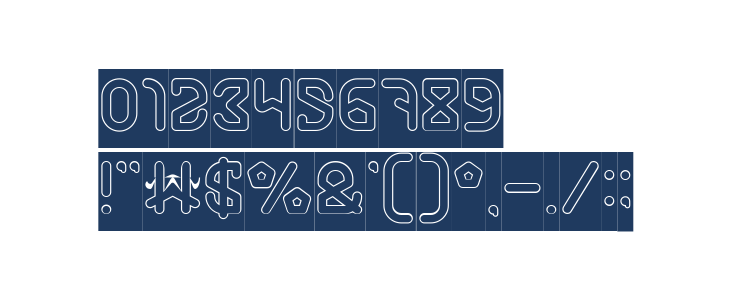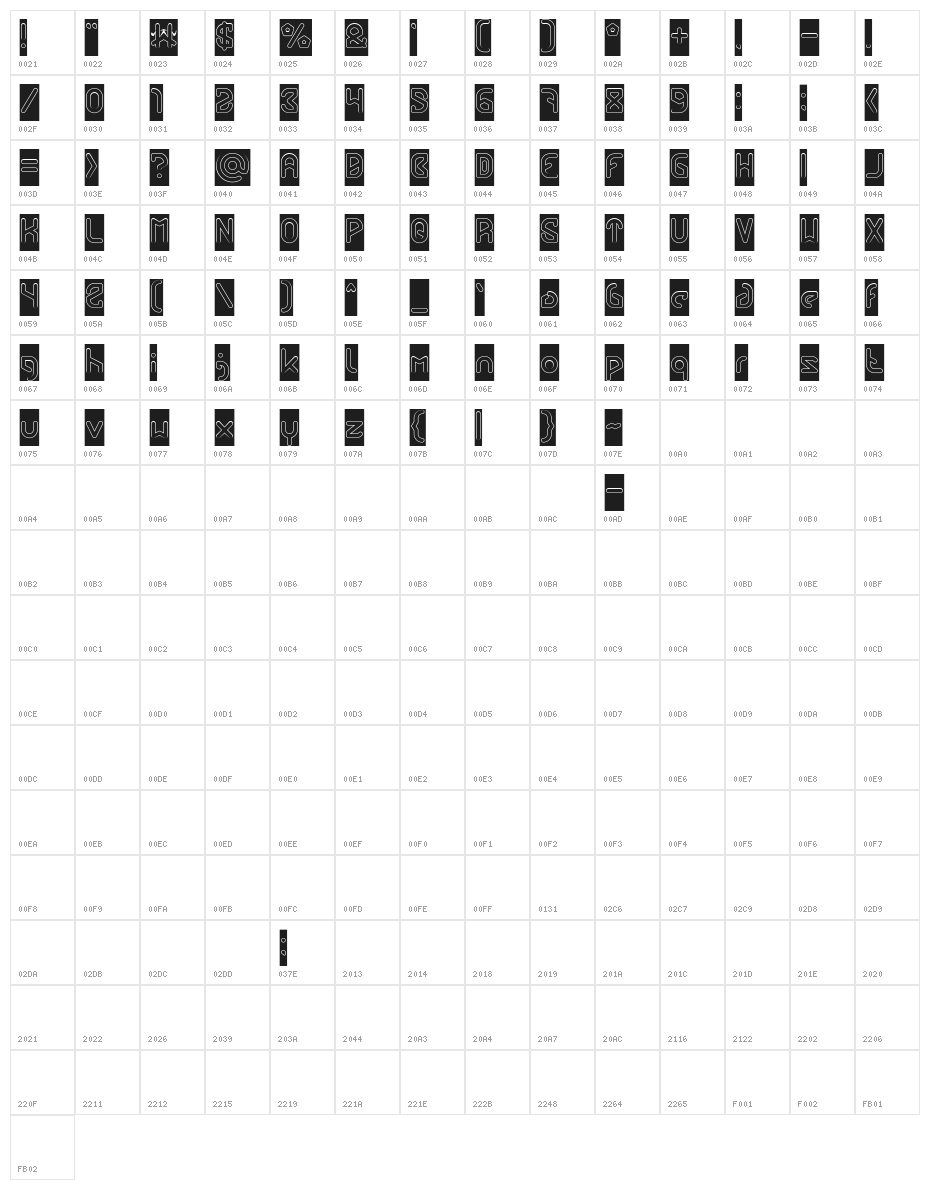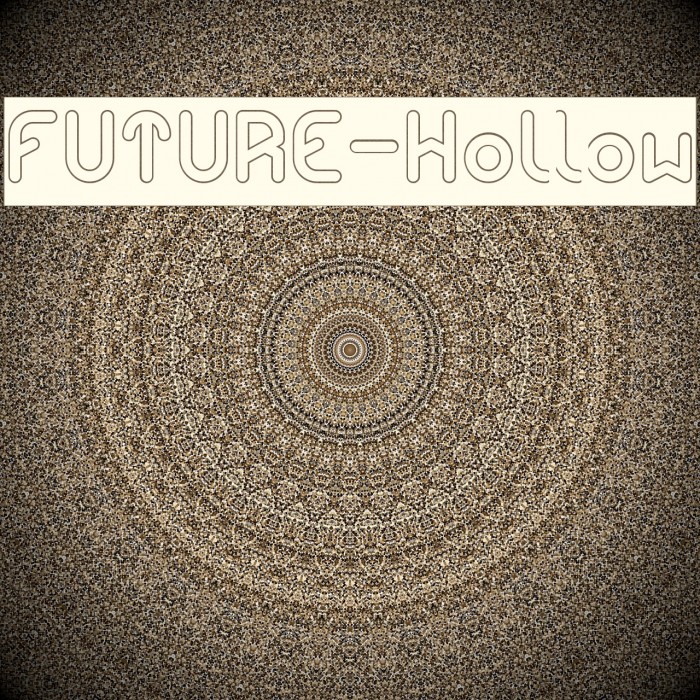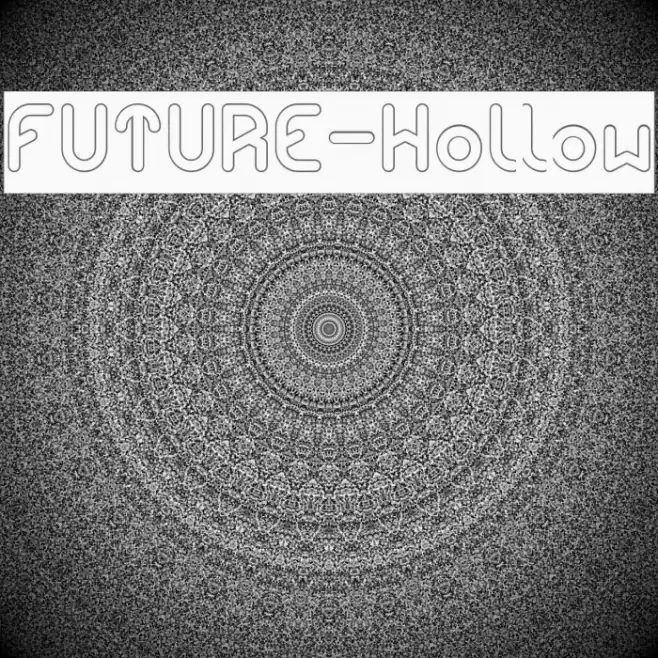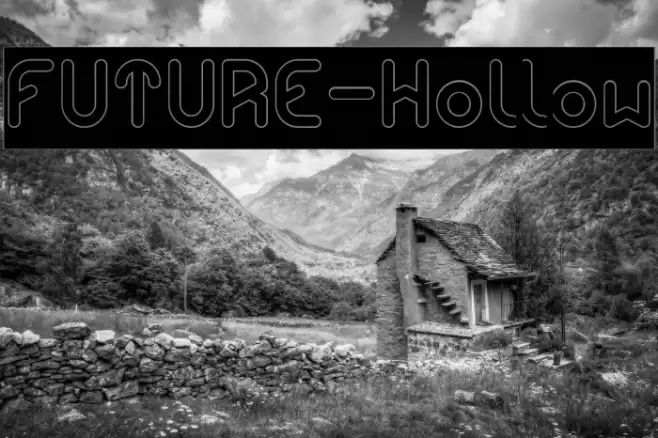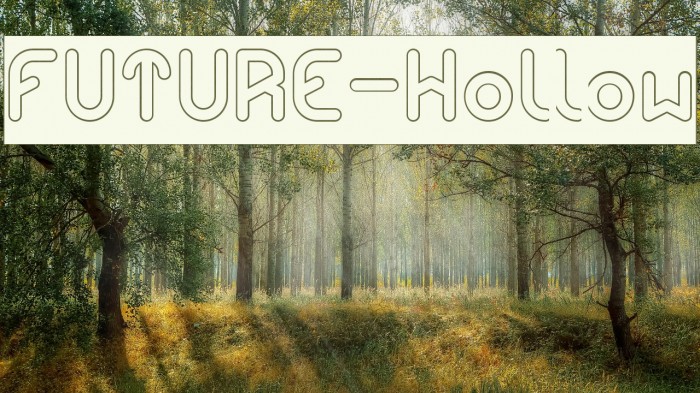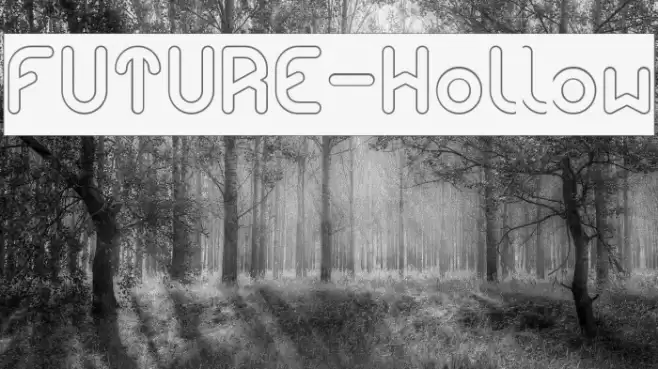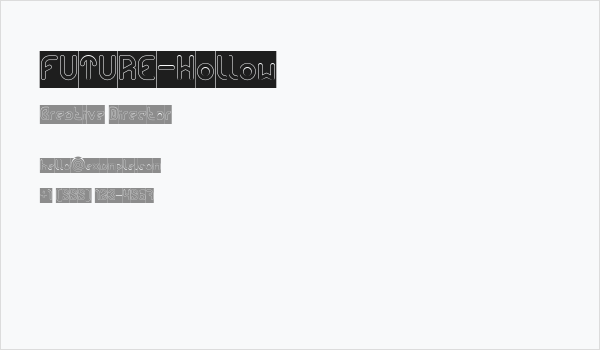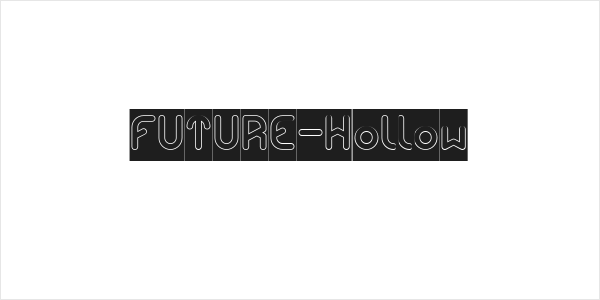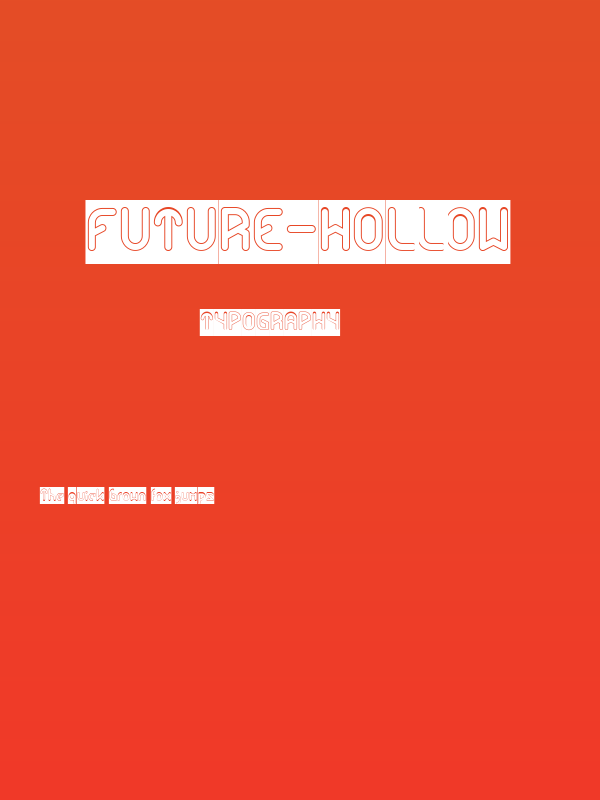
FUTURE-Hollow Font
FUTURE-Hollow Description
This font features a futuristic and hollow design, characterized by its geometric and linear structure. The letters are outlined with a consistent stroke width, creating a hollow effect that gives a modern and digital appearance. The uppercase and lowercase letters maintain a uniform style, with rounded edges and a clean, minimalist look. Numbers and special characters follow the same design principles, ensuring a cohesive appearance across all glyphs. The font's unique style makes it stand out, suitable for projects that require a contemporary and tech-inspired aesthetic.